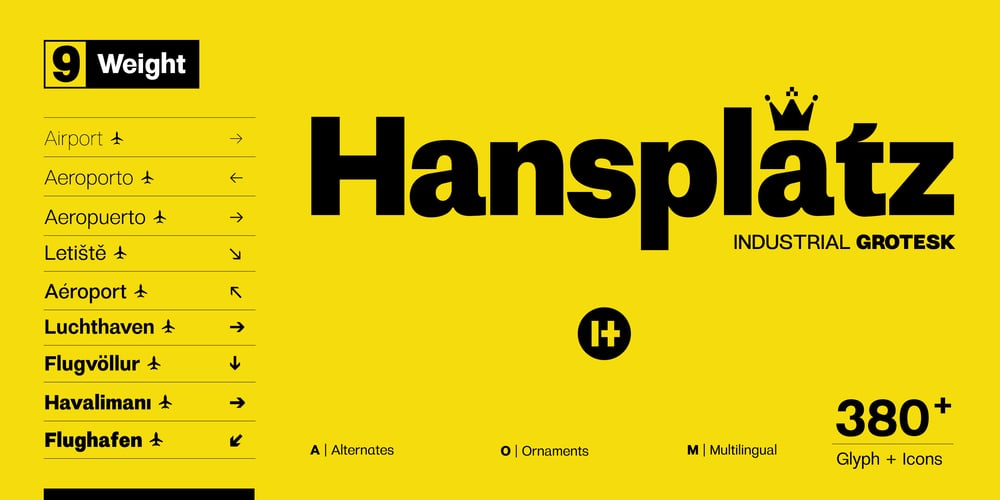
Hansplatz Grotesk Font Family was designed by Rofiki Anas Maruf and published by Heypentype. Hansplatz Grotesk contains 9 styles and family package options. Hansplatz Grotesk is a sans serif type family of nine weight. Influenced by Akzidens Grotesk, Hansplatz typeface bring a new approach to this utilitarian style of grotesk. With more square proportions rather than geometric style, Hansplatz grotesk aimed to ease typesetting job when arranging a words or paragraph easily.A wide range of weight gives flexibility to every design project, hansplatz fit nicely to grid-system because of proportions. Furthermore Hansplatz Grotesk supplied with smart Opentype scripting to assist typesetter and designer very easily to Hansplatz feature. Hansplatz Grotesk truly a utilitarian, workhorse, neutral, and of course faceless.But, it makes the work done quickly. For display use, Hansplatz Grotesk Black to Semi-Bold is recommended, for paragraph heavy design, use regular and light weight. To spice up, adding Hairline or extra-light weight will make a design execution looks great and catchy but not intimidating.